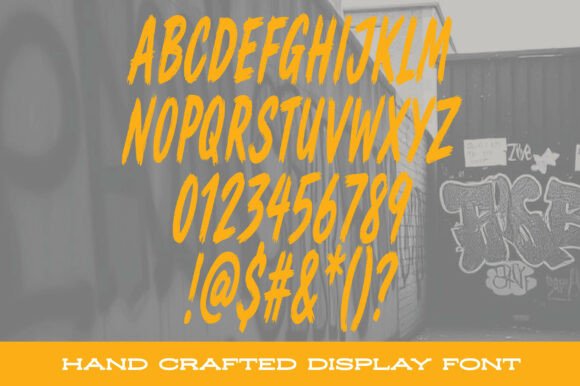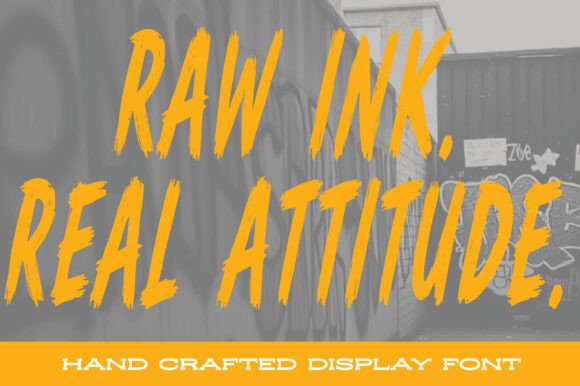
Introducing Alley Brush Font: Unleash Your Urban Creativity
Are you tired of using the same old fonts in your designs? Do you want to add a touch of edginess and urban flair to your branding, posters, album covers, or apparel? Look no further than the Alley Brush Font, a gritty, bold brush font inspired by street culture and urban expression.
The Inspiration Behind Alley Brush
Alley Brush is more than just a font – it’s an attitude, a vibe, a statement. Inspired by the raw, unbridled energy of street culture, this handcrafted display font captures the spirit of creative rebellion and back-alley grit. With strong strokes and a rough, hand-painted aesthetic, Alley Brush is perfect for designers and crafters who want to push the boundaries of conventional design.
Key Features of Alley Brush Font
- Bold and Energetic: Alley Brush is a statement font that demands attention. Its bold, energetic strokes are perfect for creating impactful headlines, urban t-shirt designs, or expressive digital content.
- Handcrafted with Love: This font is meticulously crafted to ensure a raw, hand-painted feel that’s unmistakably streetwise.
- Versatile and Adaptable: Use Alley Brush for edgy branding, graffiti-style posters, album covers, skate culture designs, modern apparel, and more.
- Unapologetically Expressive: This font doesn’t play by the rules. It’s perfect for designers and crafters who want to add a touch of rebellion to their designs.
Use Cases for Alley Brush Font
Alley Brush is an incredibly versatile font that can be used in a variety of design projects. Here are some ideas to get you started:
- Edgy Branding: Use Alley Brush to create bold, eye-catching logos that capture the essence of your brand’s personality.
- Graffiti-Style Posters: Add a touch of urban grit to your posters with Alley Brush’s raw, hand-painted aesthetic.
- Album Covers: Give your music projects a bold, streetwise vibe with Alley Brush.
- Skate Culture Designs: Pay homage to the skateboarding culture with Alley Brush’s bold, energetic strokes.
- Modern Apparel: Use Alley Brush to create eye-catching t-shirt designs, hoodie graphics, or other apparel that demands attention.
Tips for Using Alley Brush Font
To get the most out of Alley Brush, here are some tips to keep in mind:
- Experiment with Colors: Alley Brush looks great in bold, bright colors. Experiment with different color schemes to find the perfect combination for your design.
- Play with Texture: Add an extra layer of depth to your design by combining Alley Brush with textures or patterns.
- Mix and Match: Don’t be afraid to mix Alley Brush with other fonts to create a unique, eye-catching design.
Alley Brush Font is a game-changer for designers and crafters who want to add a touch of urban grit to their designs. With its bold, energetic strokes and raw, hand-painted aesthetic, this font is perfect for edgy branding, graffiti-style posters, album covers, skate culture designs, and modern apparel. So why settle for ordinary fonts when you can unleash your creativity with Alley Brush?